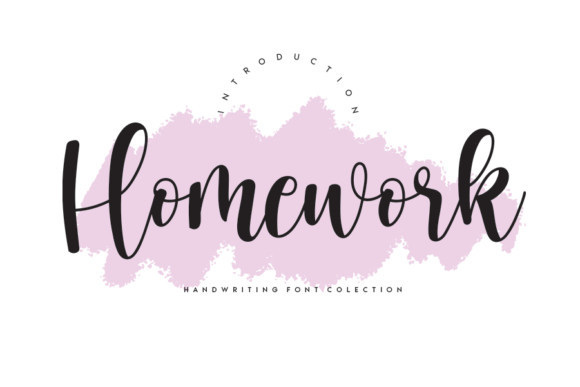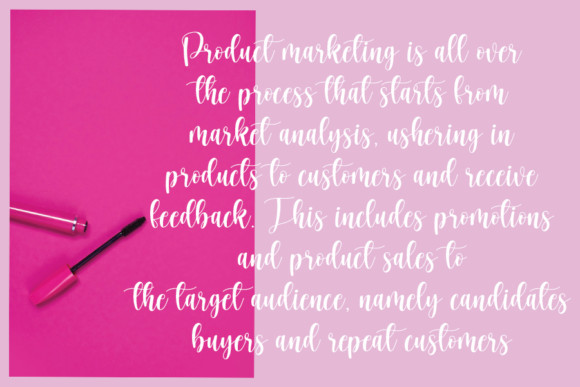
Homework Font
Homework is a delicate and flowing handwritten font. It looks stunning on wedding invitations, thank you cards, quotes, greeting cards, logos, business cards and every other design which needs a handwritten touch.